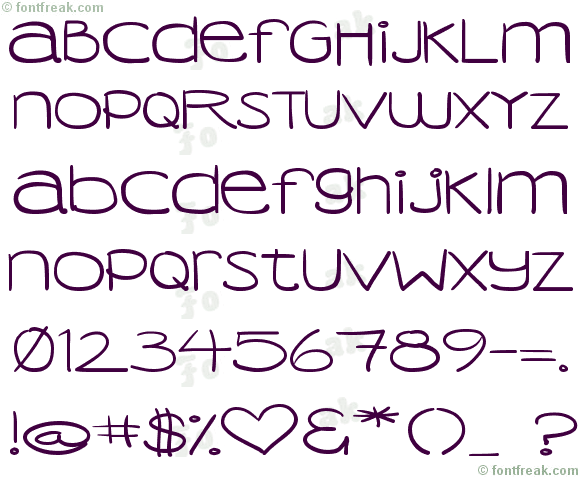
DJB COFFEE SHOPPE VENTI
About DJB COFFEE SHOPPE VENTI
DJB COFFEE SHOPPE VENTI, designed by Darcy Baldwin, is a unique display typeface that captures the cozy essence of a modern coffee shop. This font is characterized by its casual yet refined look, featuring rounded edges and a playful demeanor that makes it inviting and approachable. The stroke weight is consistent throughout, offering a balanced appearance, while the spacing between characters maintains legibility without sacrificing style. Its clean lines and slightly whimsical curves evoke a sense of warmth, making it perfect for a variety of creative projects.
This versatile font is ideal for use in coffee shop branding, restaurant menus, and promotional materials, where a friendly and casual vibe is desired. It can also shine in event invitations, such as casual weddings or brunch gatherings, where a laid-back yet stylish aesthetic is needed. Additionally, graphic designers and content creators looking to add a touch of charm to their projects will find DJB COFFEE SHOPPE VENTI to be an excellent choice for social media graphics, blog headers, and more.